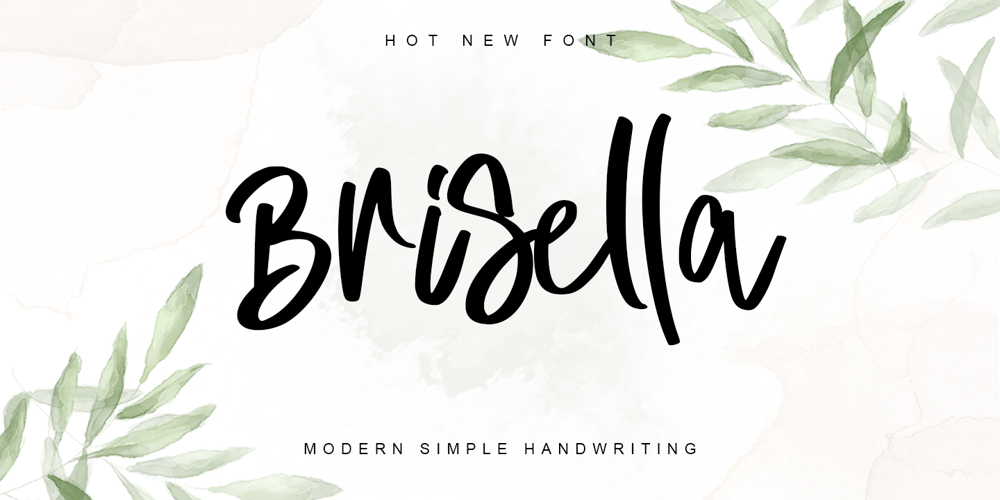
Brisella
Brisella font
Brisella Font Family was designed by Thomas Aradea and published by Letterara. Brisella contains 1 styles and family package options. Brisella is a simple modern handwritten font with a wonderful choice of bold and elegant to choose from. Its natural and unique style makes it incredibly fitting to a large pool of designs. The only limit is your imagination! This font is PUA encoded which means you can access the available glyphs and ligature with ease!